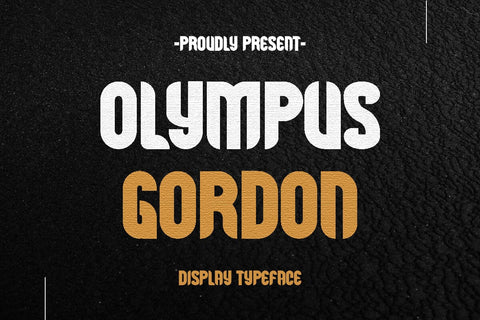
Olympus Gordon - Display Typeface
Hi, Introducing Olympus Gordon - Display Typeface
A Display Typeface font with a manly, gentle, vintage style, this font is cool for tumblers, headlines, overlays etc.